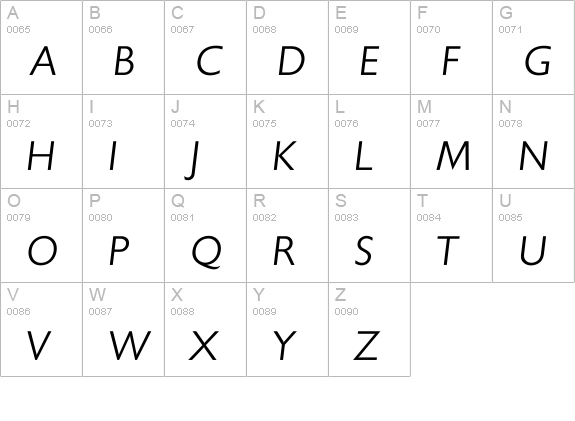
Ichantilly Light Font Details
Ichantilly Light is a refined, elegant variant in the Ichantilly typeface family \xE2\x80\x94 well suited to elegant body text, refined sub-headings, and luxury branding.
Ichantilly Light font is a breathtakingly elegant and versatile typeface that exudes a sense of sophistication and grace. With its delicate curves and smooth lines, this font captures the essence of timeless beauty and modernity. Designed with utmost care and attention to detail, Ichantilly Light font is perfect for a wide range of design projects, from wedding invitations and branding materials to editorial layouts and signage. Its clean and legible characters make it incredibly versatile and easy to read, while its unique and stylish flourishes add a touch of personality and charm. But what truly sets Ichantilly Light font apart is the fact that it is freely available to download at FontsMarket.com. Yes, you read that right – this exceptional font can be yours without spending a dime. FontsMarket.com is a reputable and trusted source for high-quality fonts, and they are proud to offer Ichantilly Light font as a free download to all design enthusiasts. So why wait? Enhance your designs with the sheer beauty and elegance of Ichantilly Light font. Whether you're a professional designer or a DIY enthusiast, this font is sure to impress with its timeless appeal and effortless sophistication. Download it for free today at FontsMarket.com and let your creativity soar to new heights.